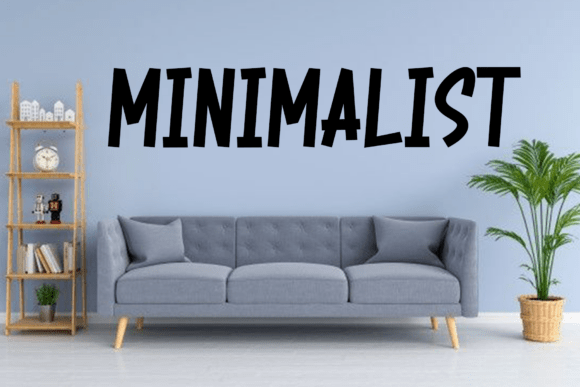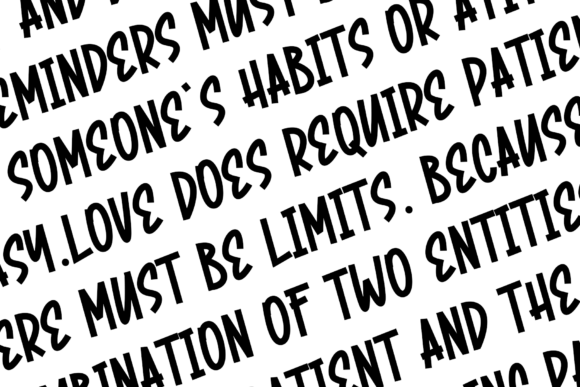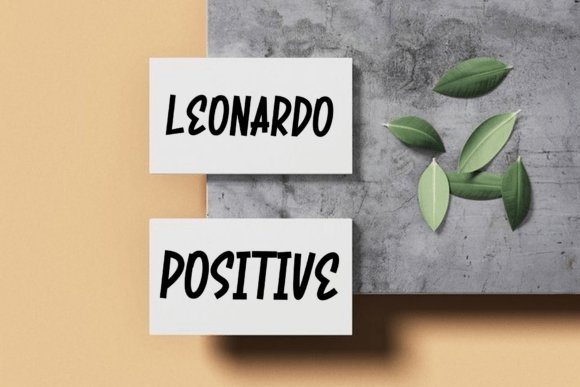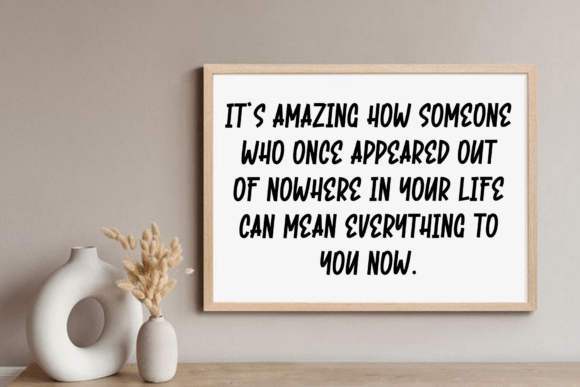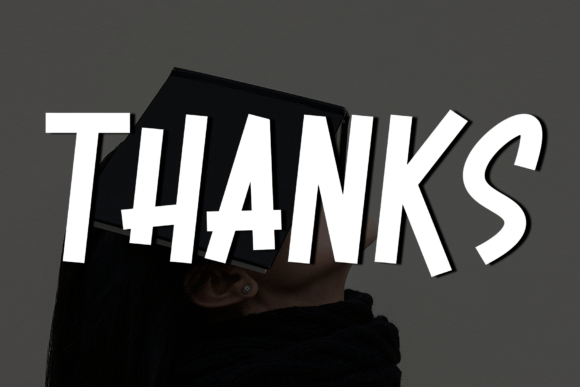
Boring Font: Elevate Your Designs with Elegance and Personality
In the world of typography, fonts play a crucial role in conveying the tone and aesthetic of a design. For designers and crafters looking for a modern display font that exudes elegance and sophistication, Boring Font is an excellent choice. This beautiful font combines fluid strokes and gentle curves to create a unique and personal touch, making it perfect for a variety of design projects.
The Characteristics of Boring Font
Boring Font is a modern display font that stands out for its elegant and refined appearance. Its fluid strokes and gentle curves give it a natural, hand-written feel that is both sophisticated and accessible. The font’s design is inspired by the natural flow of real handwriting, making it perfect for designs that require a personal touch.
Boring Font is an excellent choice for a variety of creative projects, including:
- Wedding Invitations: The font’s elegant and refined appearance makes it perfect for wedding invitations, adding a touch of sophistication and romance to your designs.
- Logos: Boring Font’s unique and personal touch makes it an excellent choice for logos, helping to create a memorable and distinctive brand identity.
- Stationery: The font’s fluid strokes and gentle curves make it perfect for stationery designs, adding a touch of elegance and refinement to your letters and cards.
- Instagram Quotes: Boring Font’s modern and sophisticated appearance makes it an excellent choice for Instagram quotes, helping to elevate your social media designs and make them more engaging.
- Branding Projects: The font’s versatility and elegance make it perfect for branding projects, helping to create a consistent and recognizable brand identity.
Why Choose Boring Font?
So, why choose Boring Font for your design projects? Here are just a few reasons:
- Elegance and Sophistication: Boring Font’s elegant and refined appearance makes it perfect for designs that require a touch of sophistication and luxury.
- Personal Touch: The font’s fluid strokes and gentle curves give it a unique and personal touch, making it perfect for designs that require a human touch.
- Readability: Despite its elegant appearance, Boring Font is highly readable, making it perfect for designs that require a clear and concise message.
- Versatility: The font’s versatility makes it perfect for a variety of design projects, from wedding invitations to branding projects.
Tips for Using Boring Font
To get the most out of Boring Font, here are a few tips:
- Use it as a Display Font: Boring Font is perfect for use as a display font, making it ideal for headings, titles, and other prominent design elements.
- Pair it with Other Fonts: The font pairs well with other fonts, making it easy to create a clear visual hierarchy in your designs.
- Experiment with Colors: Boring Font looks great in a variety of colors, so don’t be afraid to experiment and find the perfect color scheme for your design.
In conclusion, Boring Font is a beautiful and elegant modern display font that is perfect for designers and crafters looking to elevate their designs. Its fluid strokes and gentle curves give it a unique and personal touch, making it perfect for a variety of creative projects. With its sophistication, readability, and versatility, Boring Font is an excellent choice for anyone looking to add a touch of elegance and refinement to their designs.